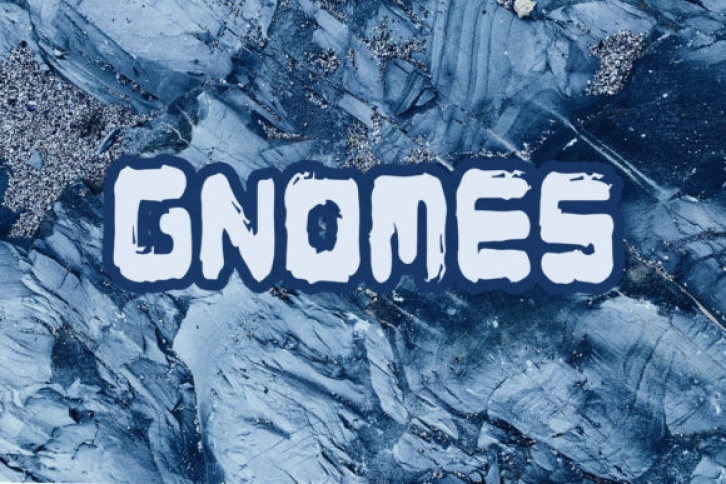
Gnomes is a fun and cartoon like display font. It is suitable for any branding, product packaging, invitation, quote, t-shirt, label, poster, logo that you wish to develop.